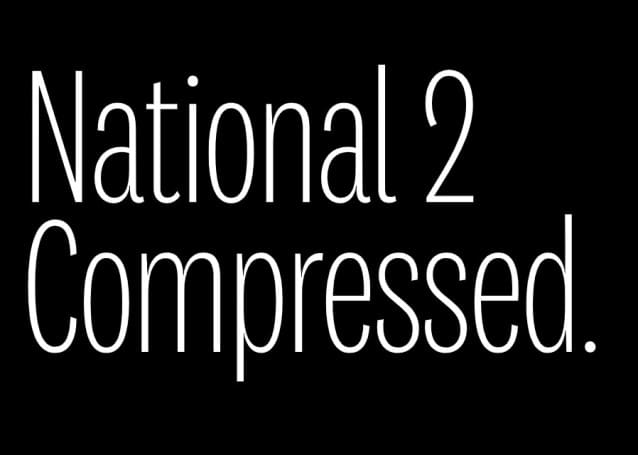
National 2 Compressed Font Family
National 2 Compressed Font Family is a complete overhaul of our popular sans, National. 10 years in the making, every single letter is re-drawn and re-mastered. The weight distribution is better, the curve quality is refined and there are three new widths: Narrow, Condensed and Compressed. National’s details are drawn from the era of Akzidenz-Grotesk, giving it a humble, workmanlike character with an agreeable tone of voice.